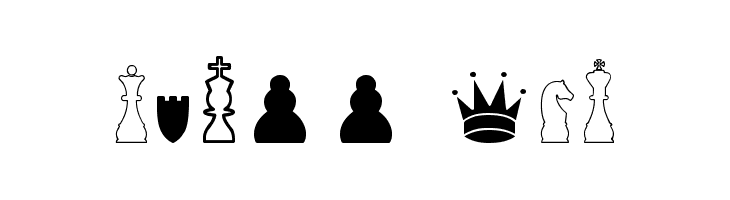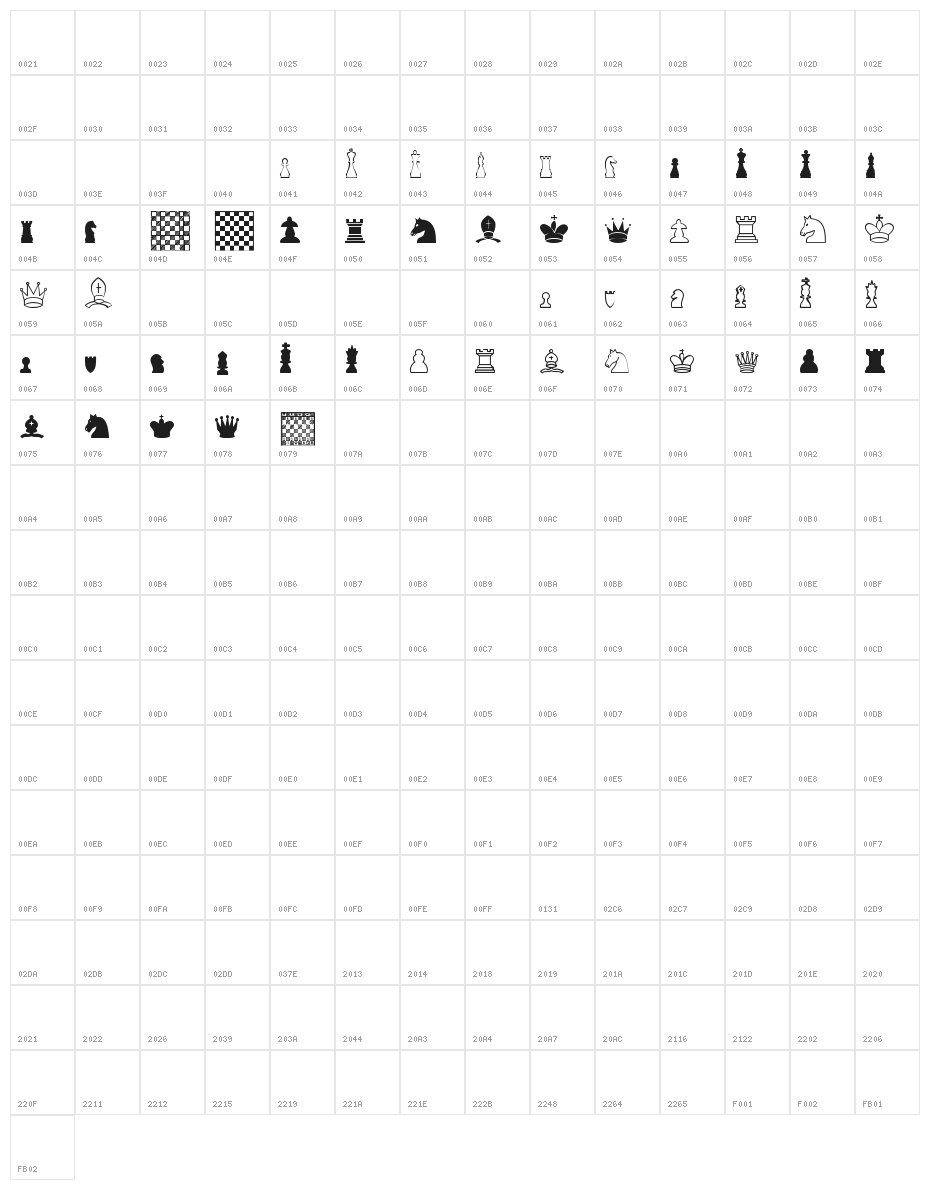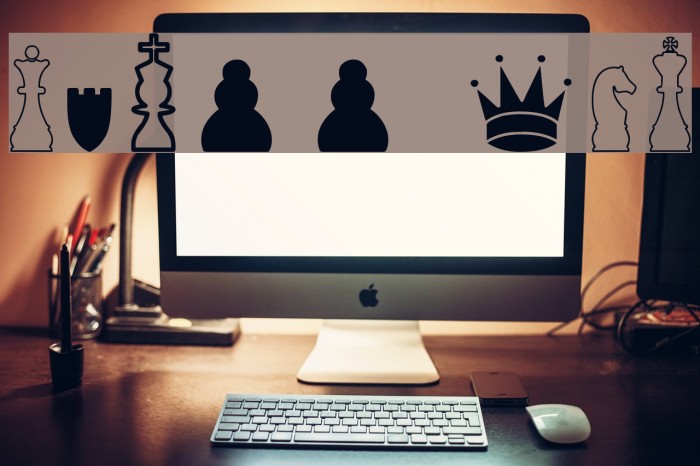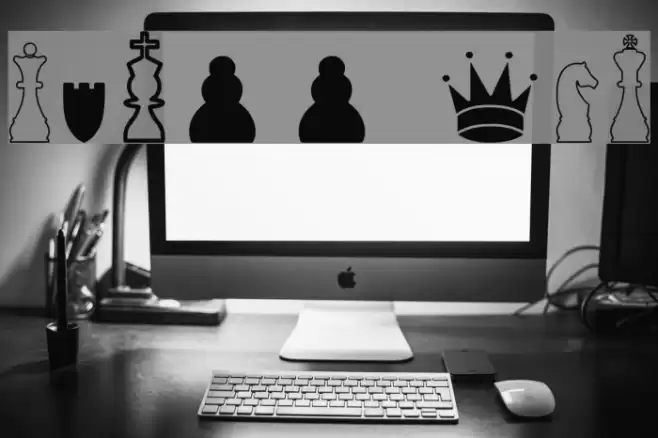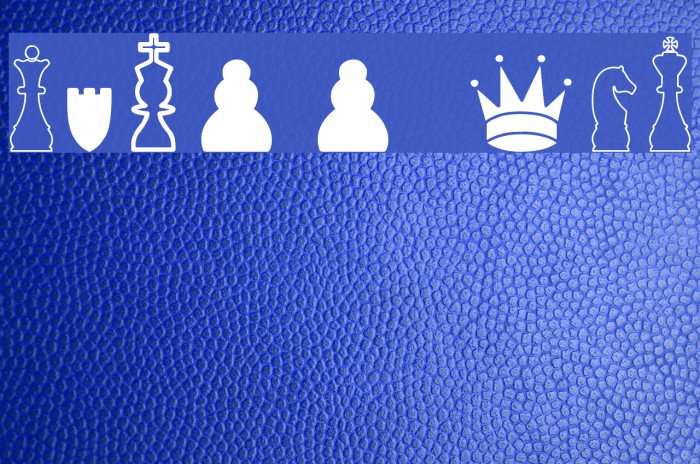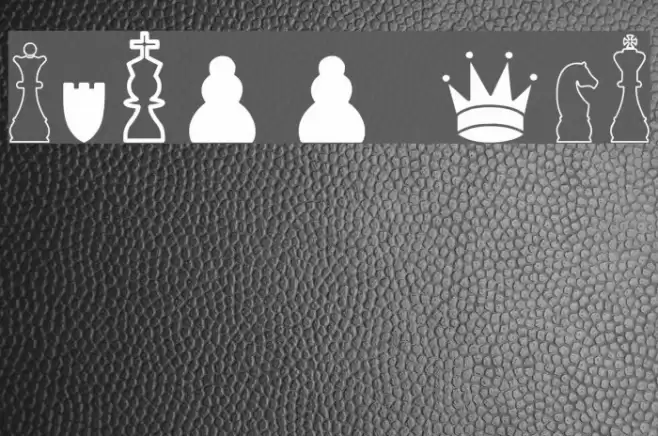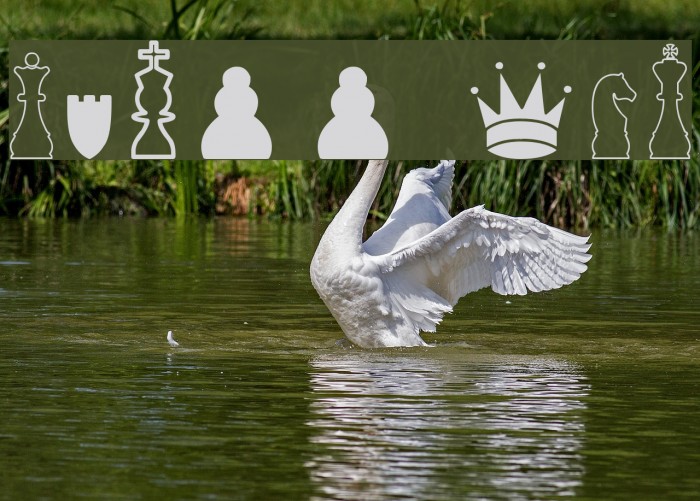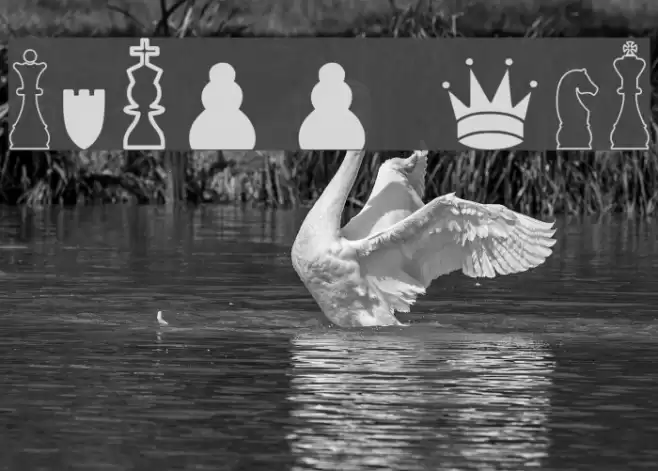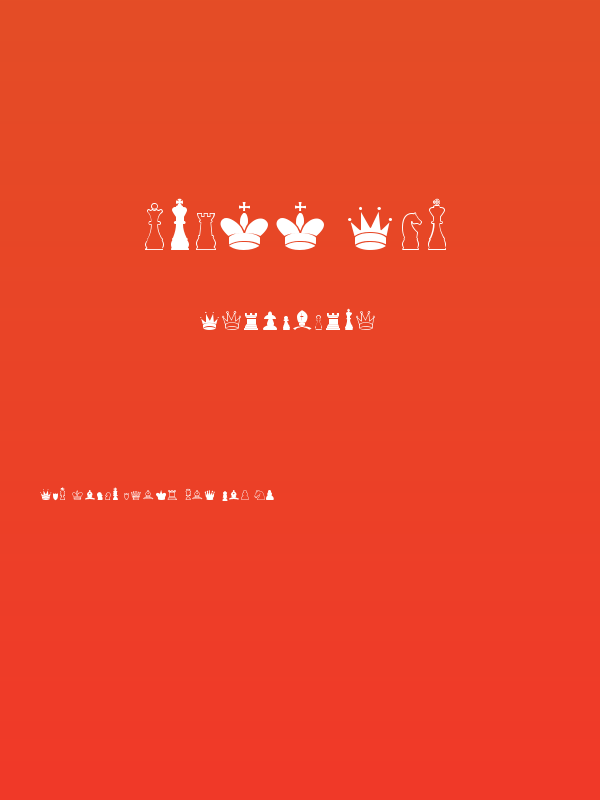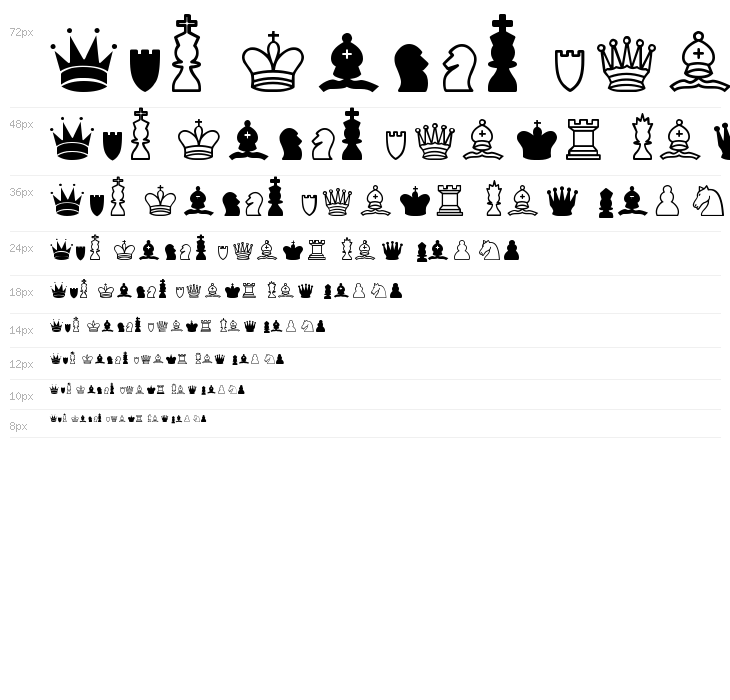
Chess TFB Font
Chess TFB Description
This is a decorative font that features stylized chess pieces and boards as its characters. Each letter and symbol is represented by a unique chess piece or board design, offering a playful and thematic approach to typography. The font includes both outlined and filled versions of the pieces, providing versatility in design. The characters are bold and distinct, making them easily recognizable and suitable for thematic projects. The font's unique style makes it ideal for projects related to chess, gaming, or educational materials about the game. Its decorative nature lends itself well to creative and playful applications.
| Use Case | Logos, Posters, Thematic Designs |
| Proposed Projects | Ideal for chess-themed designs, educational materials, game-related graphics, and creative projects. |